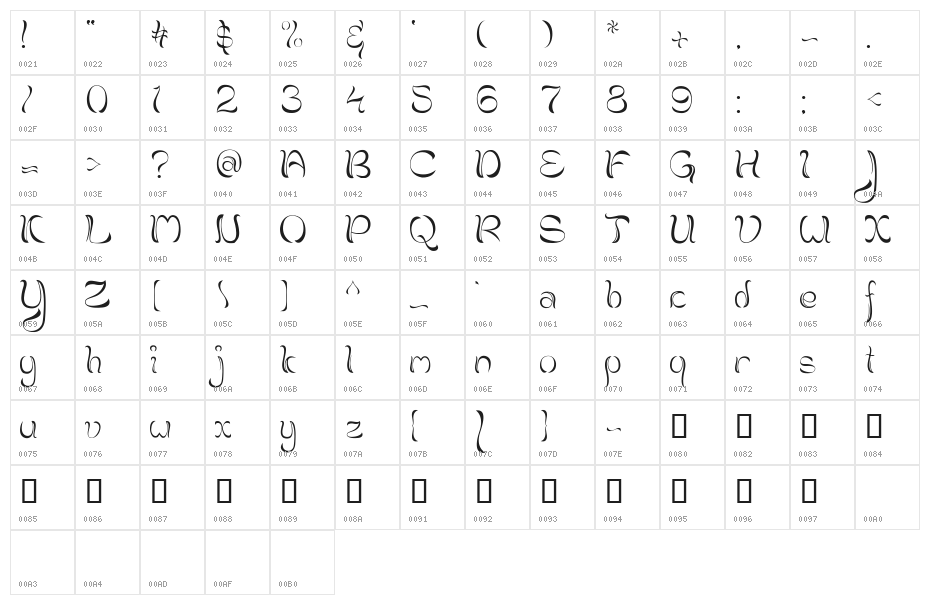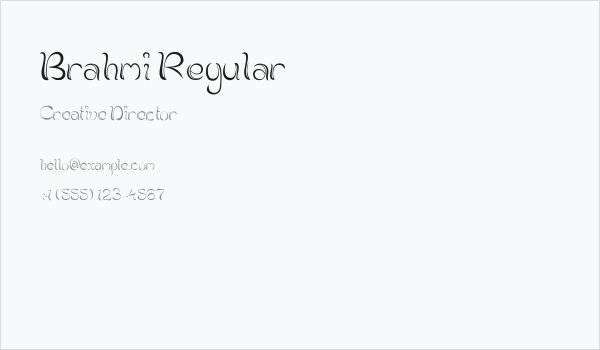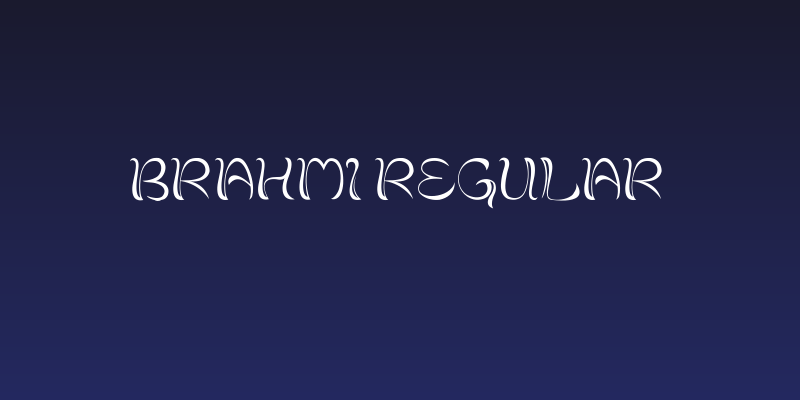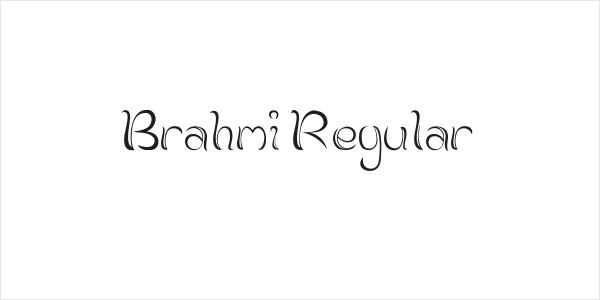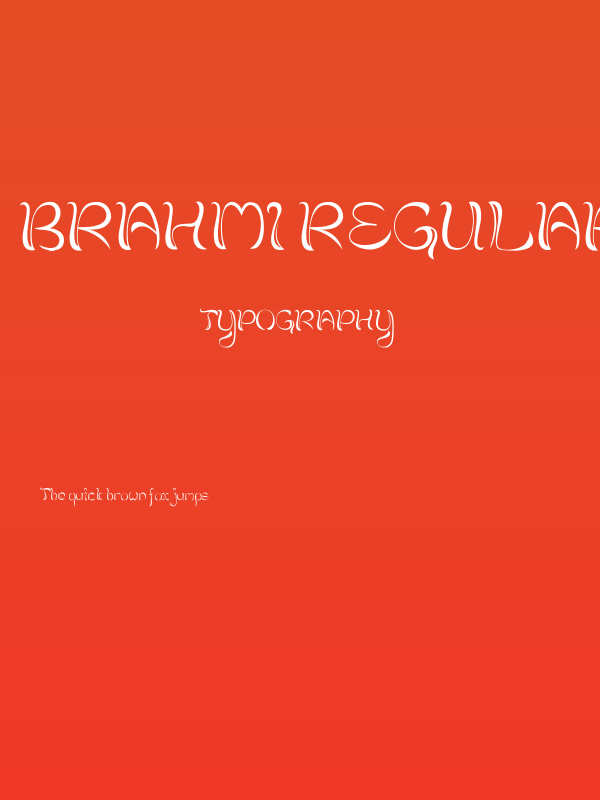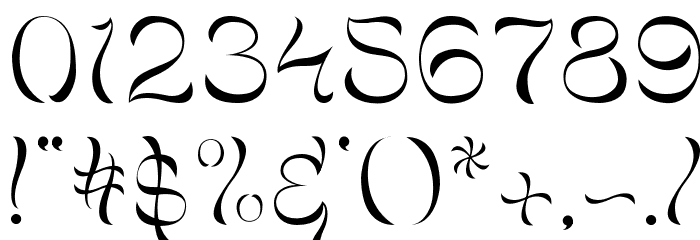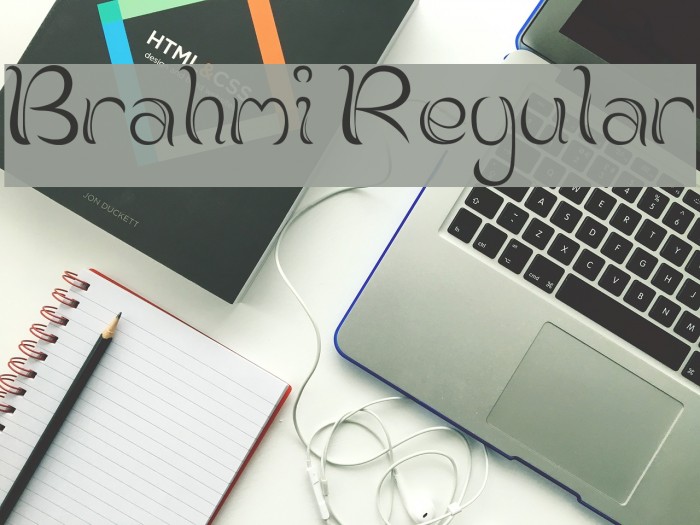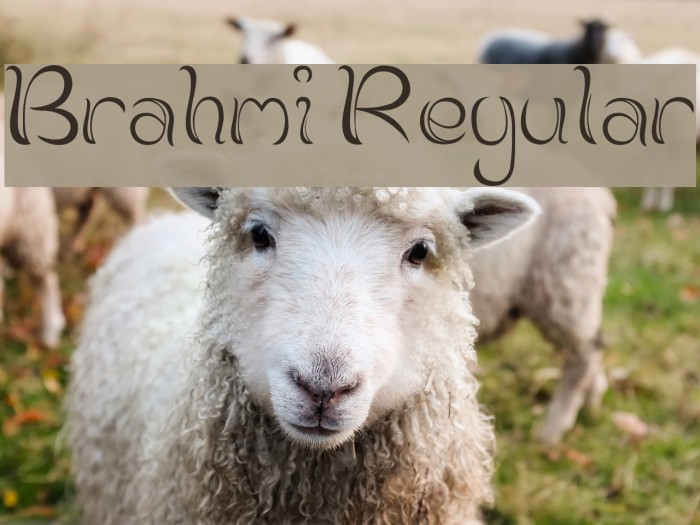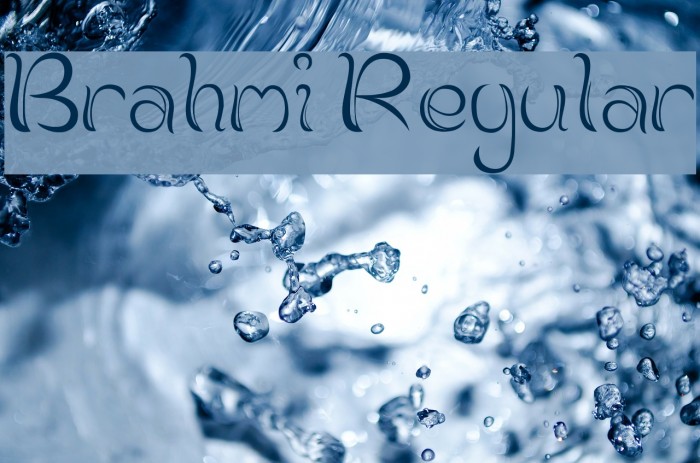
Brahmi Regular Font
Brahmi Regular Description
This font features a unique blend of traditional and modern elements, characterized by its flowing, calligraphic style. The letters exhibit a distinct curvature with elegant, sweeping strokes that give it a dynamic and artistic appearance. The uppercase letters are bold and prominent, while the lowercase letters maintain a consistent fluidity. Numbers and special characters are designed with the same artistic flair, ensuring a cohesive look across all elements. The font's overall aesthetic is both sophisticated and expressive, making it suitable for creative and decorative applications.
| Use Case | Logos, Invitations, Artistic projects |
| Proposed Projects | Ideal for invitations, greeting cards, artistic posters, and branding projects that require a touch of elegance and creativity. |